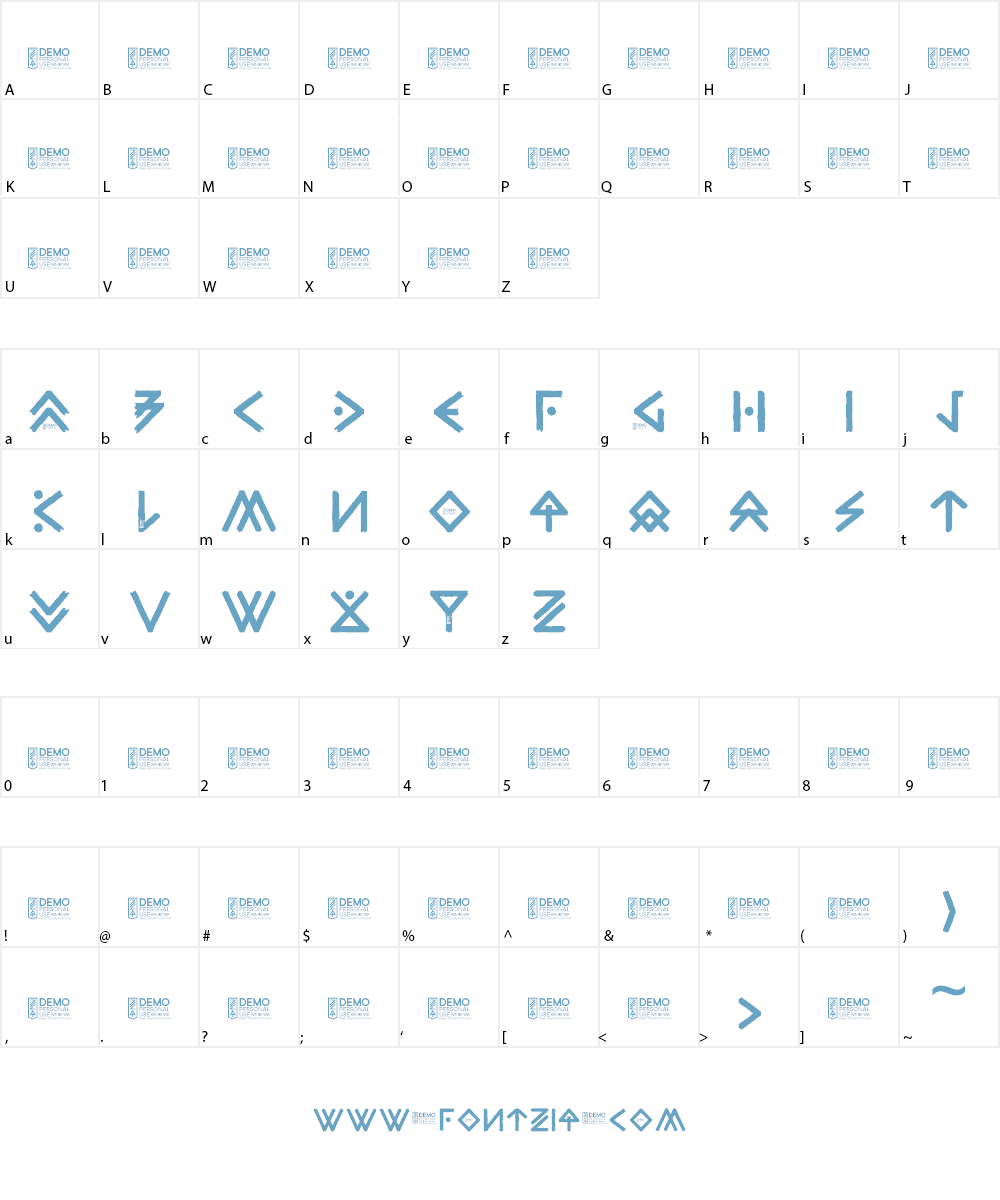
USE PERSONAL - Zilap Extraterrestrial Ancestors is a special type font
code, inspired by futuristic alien symbols and
Ancient writing of African culture.
This project has 2 versions, the futuristic one that
has clean and rounded strokes and the cultural that
It has brush strokes.